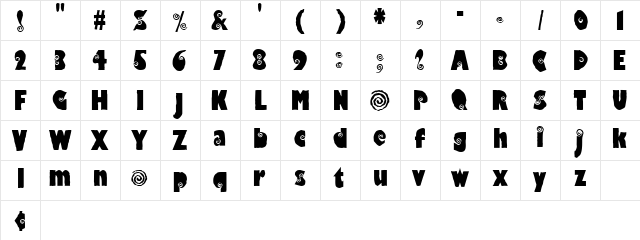
Vertigo Regular Font Preview
Vertigo Regular
Design Context for Vertigo Typeface
Vertigo is a composed and adaptable typeface that performs quietly and consistently across a wide range of design contexts.